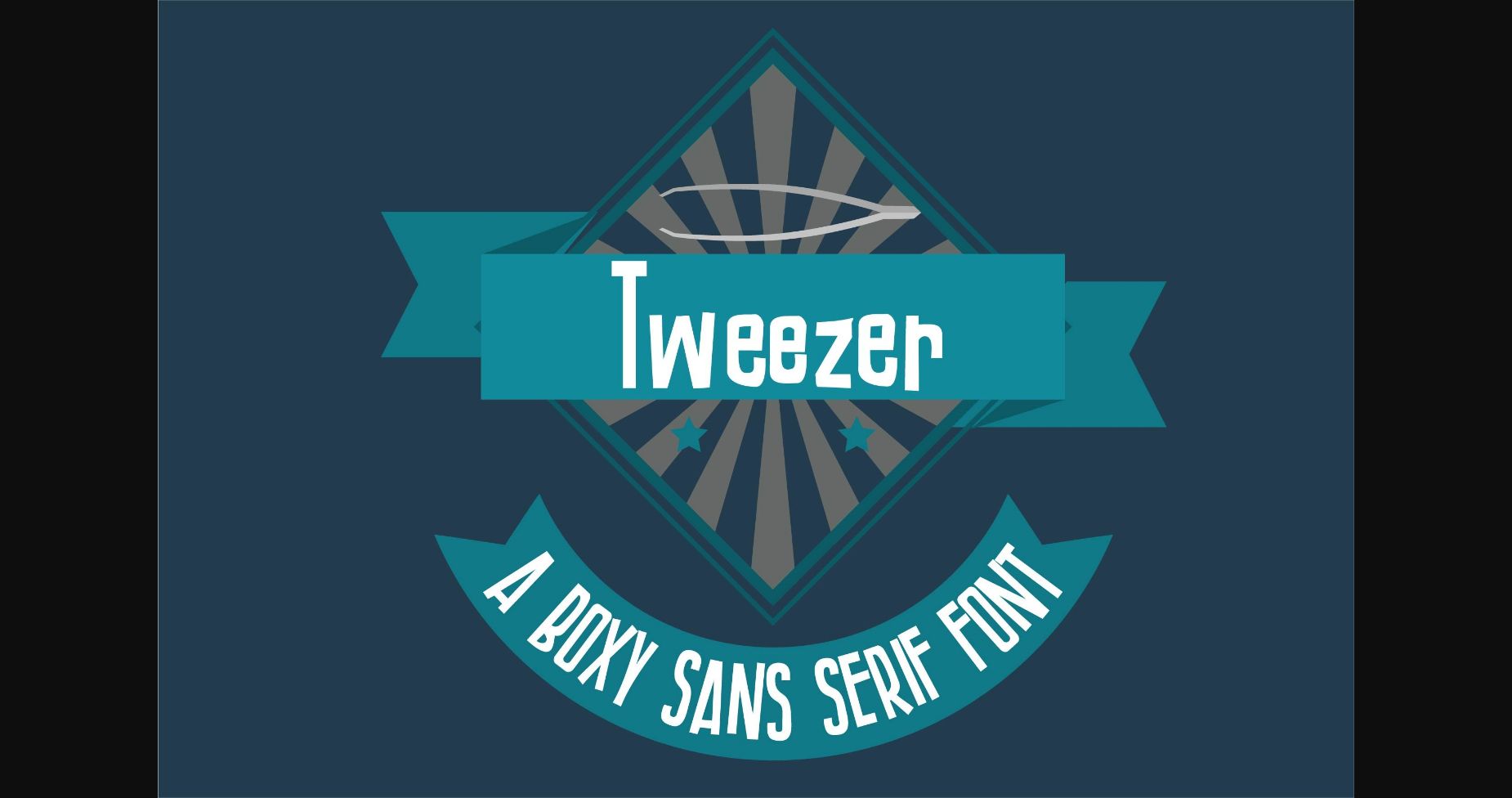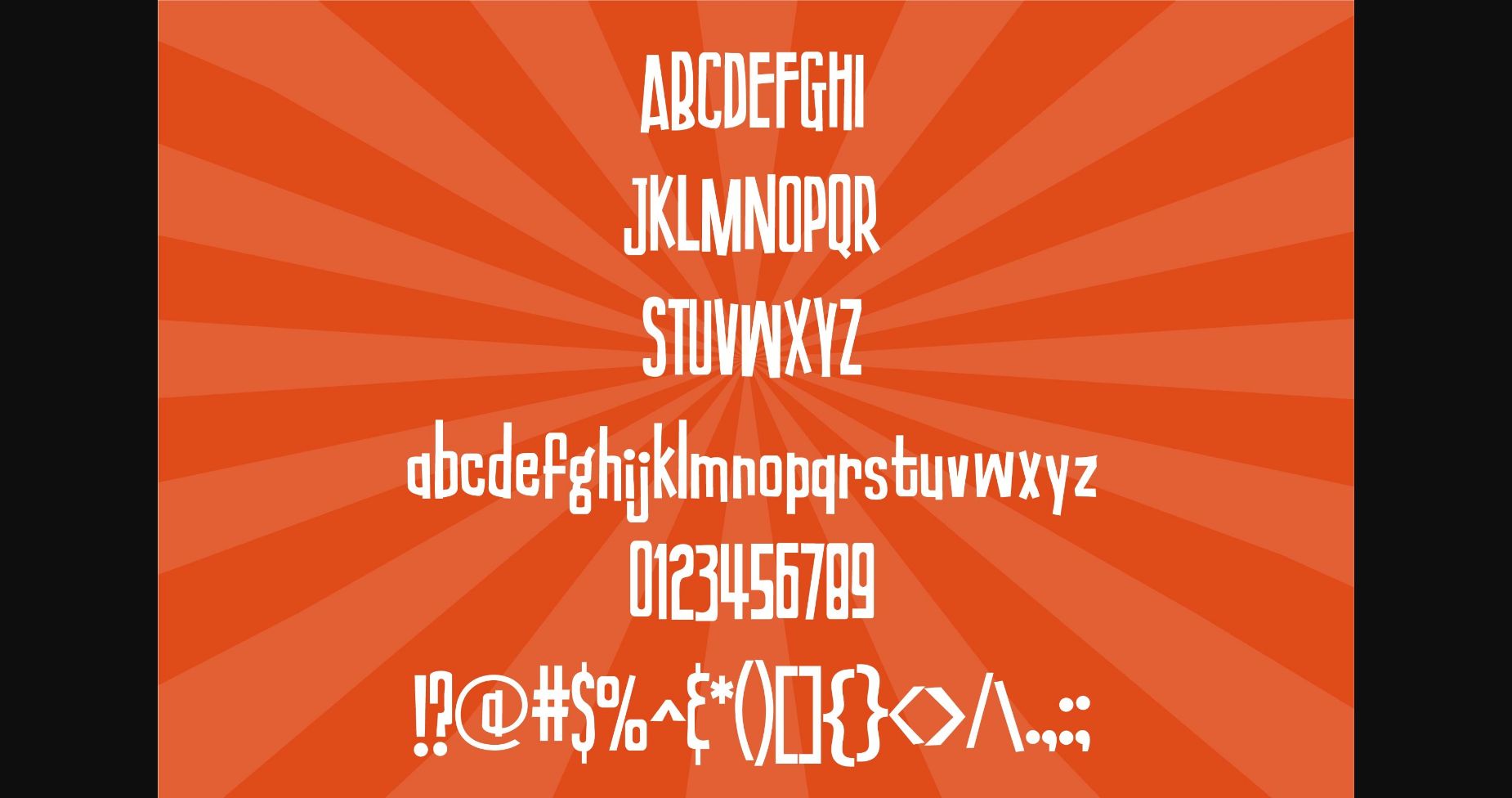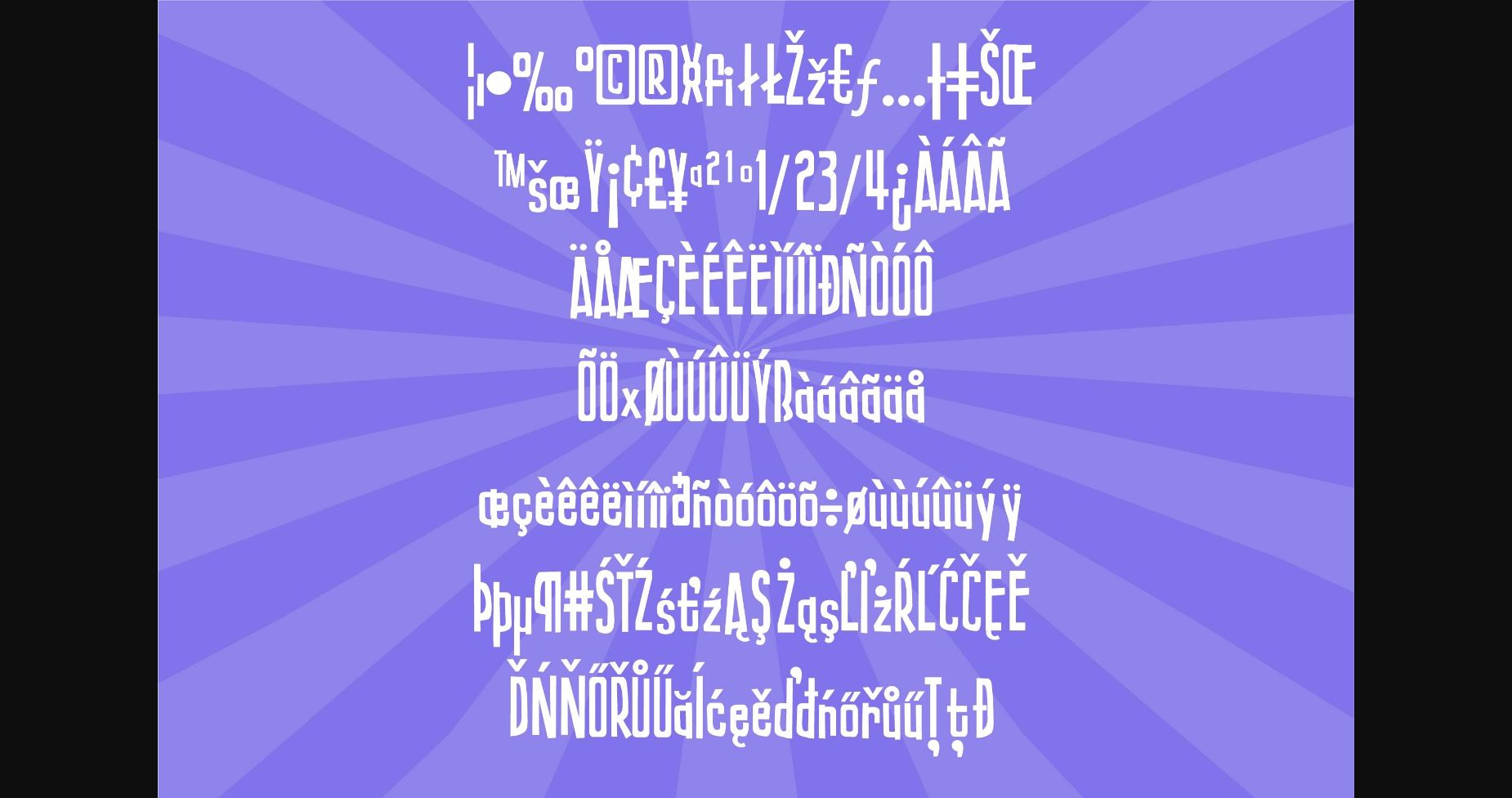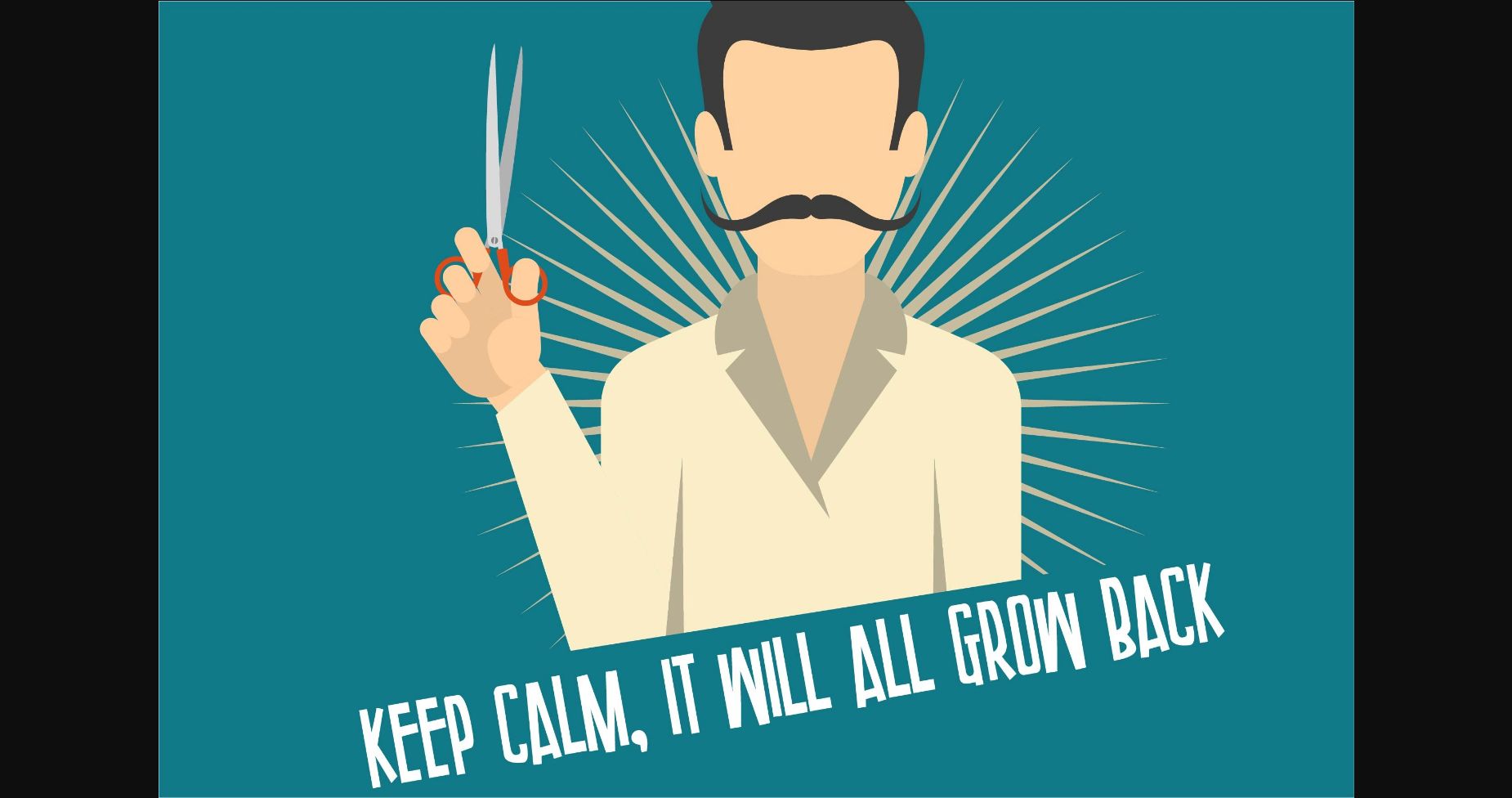
About Tweezer Font
This hand-written sans serif font is boxy and whimsical. It looks great on storybook covers, magazines, books, posters, or anything that needs to stand out.